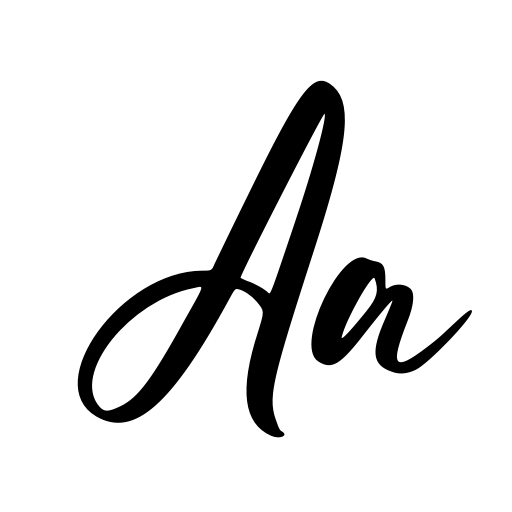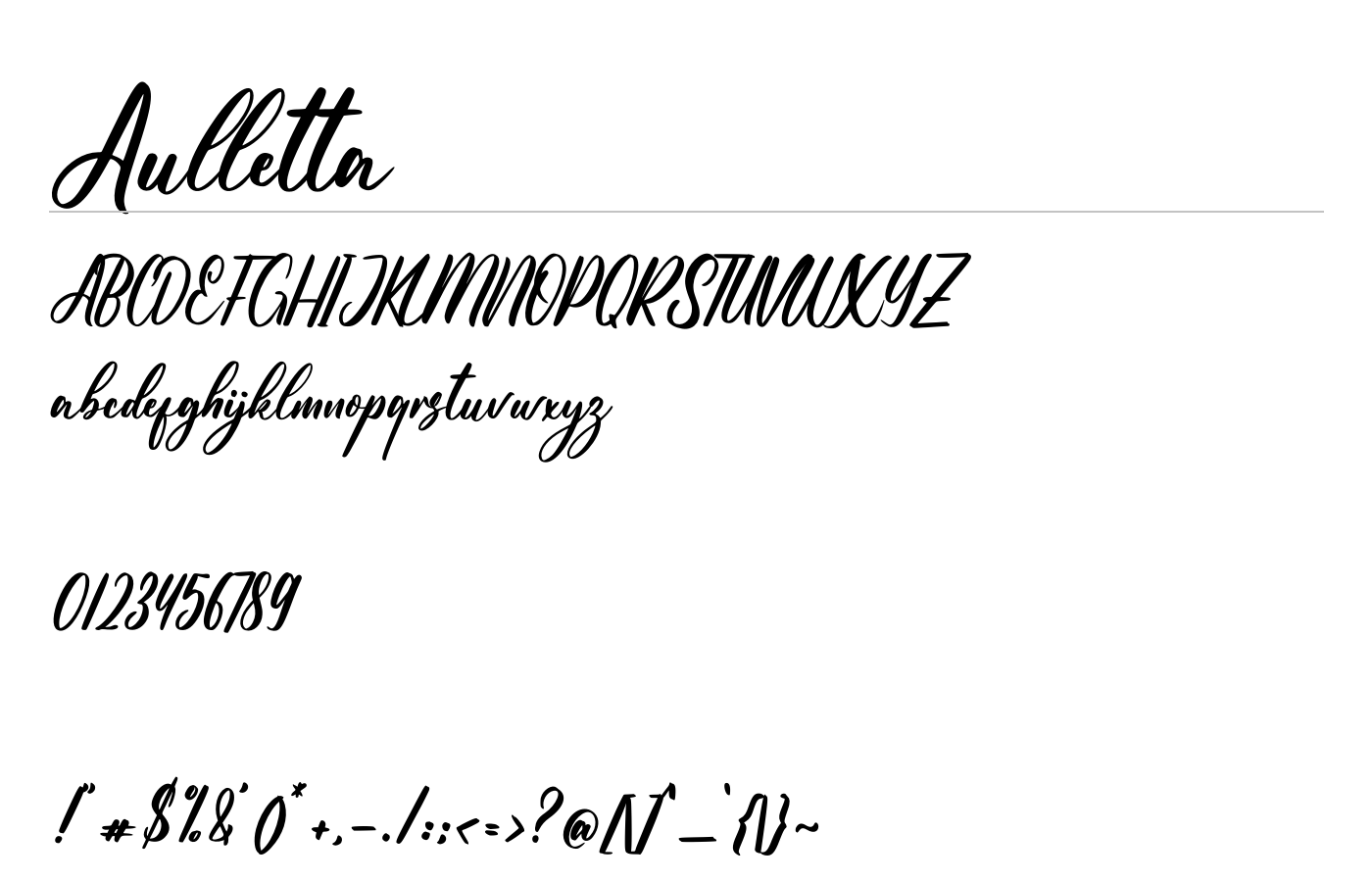
Aulletta is a graceful script font characterized by its flowing, elegant strokes and a medium weight that balances delicacy with readability. Its tall, slightly condensed letterforms feature smooth, calligraphic curves with a lively, handwritten feel, making it ideal for sophisticated branding, invitations, and stylish headlines. This font’s refined personality suits fashion, luxury, and creative projects looking to convey charm and elegance with a modern touch.
Aulletta Font